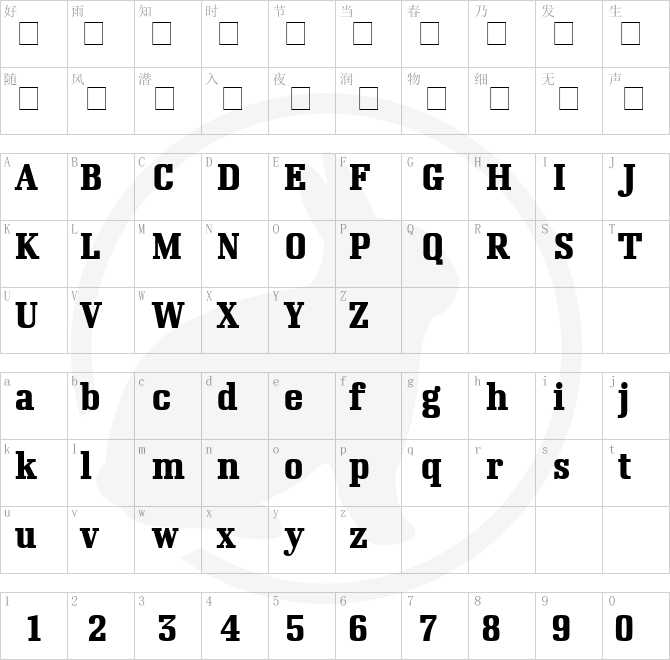
- Font Name:Napoleon Bold Condensed
Napoleon-Bold-Condensed-copy-1-.ttf is a very beautiful artistic font, Napoleon-Bold-Condensed-copy-1-.ttf is widely used in the design and printing of various books and pictures,Napoleon-Bold-Condensed-copy-1-.ttf has a strong visual impact,Napoleon-Bold-Condensed-copy-1-.ttf is a commonly used font in newspapers, magazines and books, and is used in posters, e-commerce Poster design, store design, logo design, font design and other fields.Napoleon-Bold-Condensed-copy-1-.